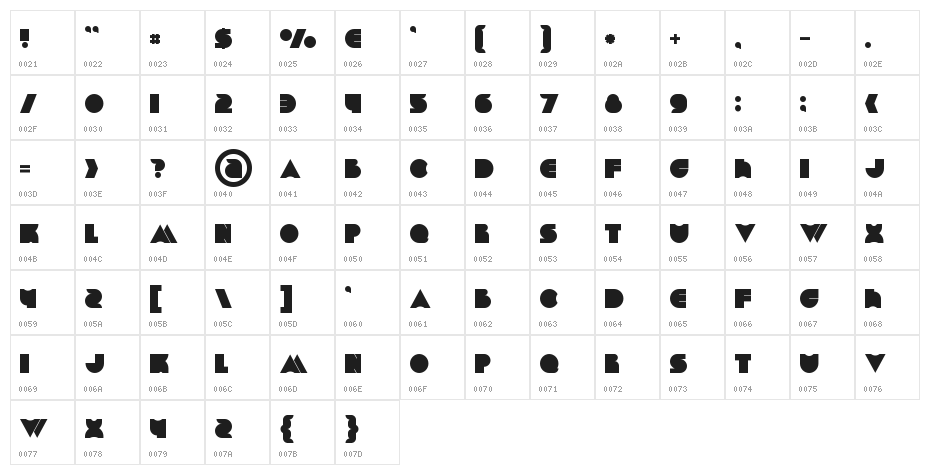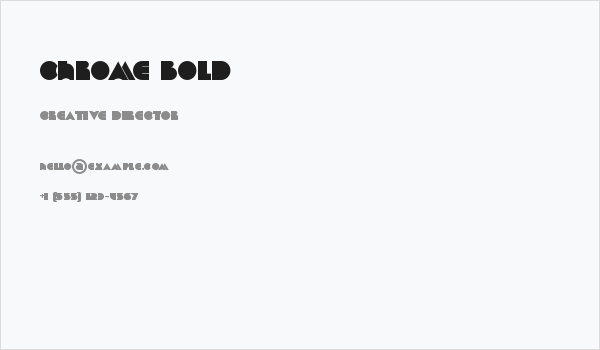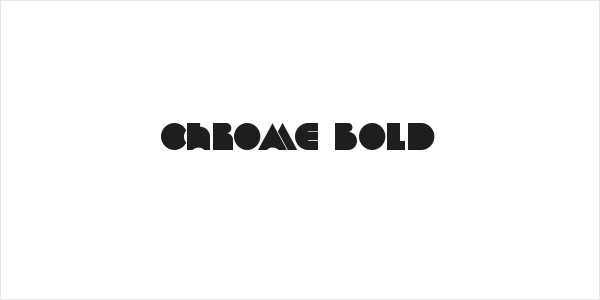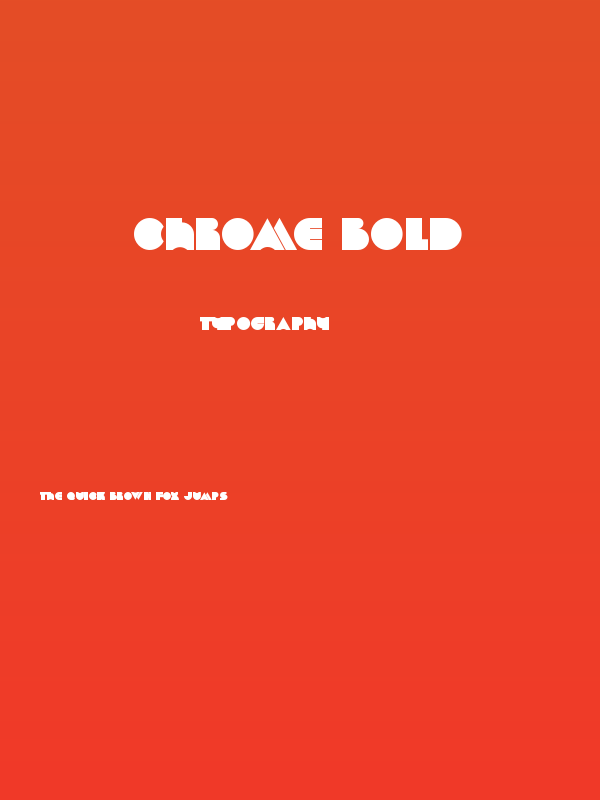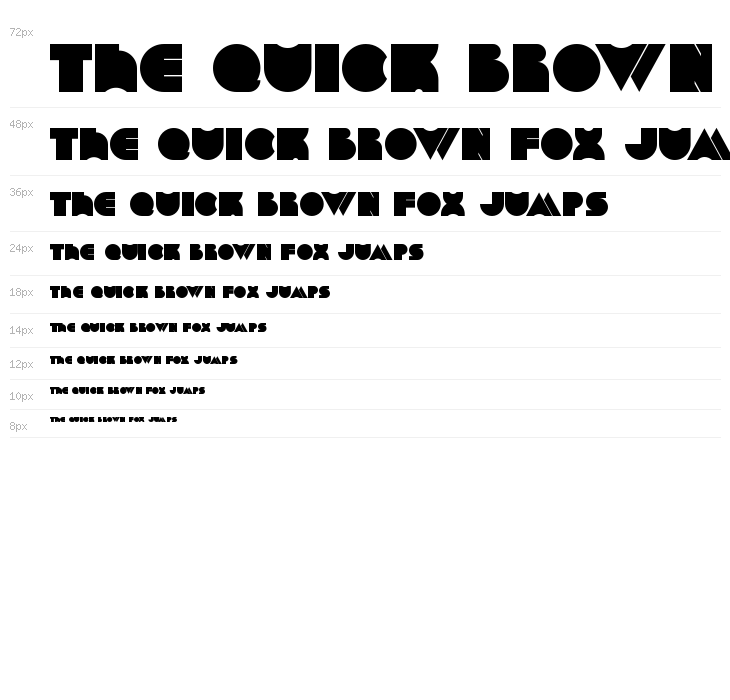
Chrome Bold Font
Chrome Bold Description
This bold and striking font features a geometric and futuristic design, characterized by its solid, block-like letterforms. The uppercase letters are crafted with sharp angles and unique cutouts, creating a sense of movement and modernity. The lowercase letters maintain the same boldness, with a consistent weight throughout. Numbers and special characters follow the same design principles, ensuring uniformity across all elements. The font's distinctive style makes it ideal for projects that require a strong visual impact.
| Proposed Projects | Ideal for branding, posters, headlines, and any design project that requires a bold, modern aesthetic. |